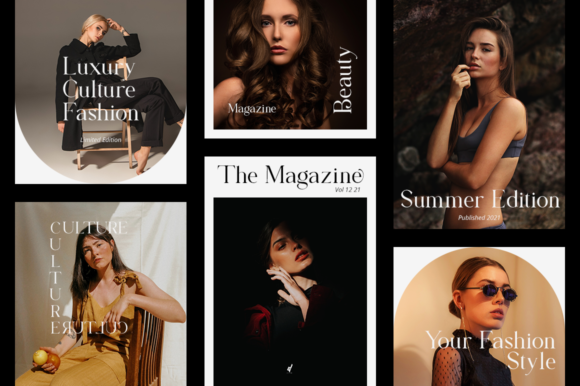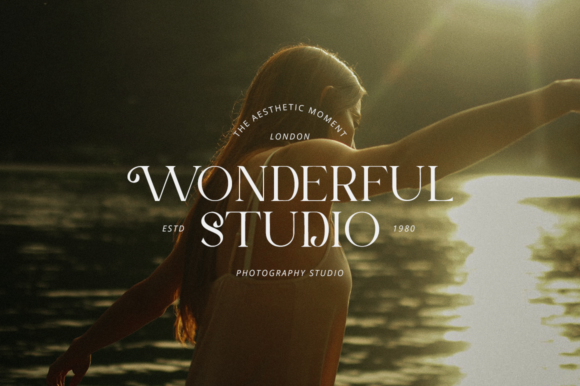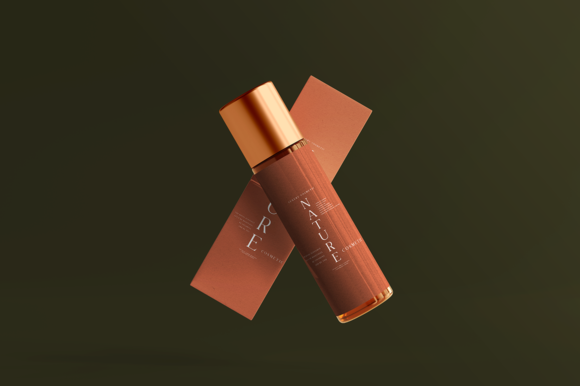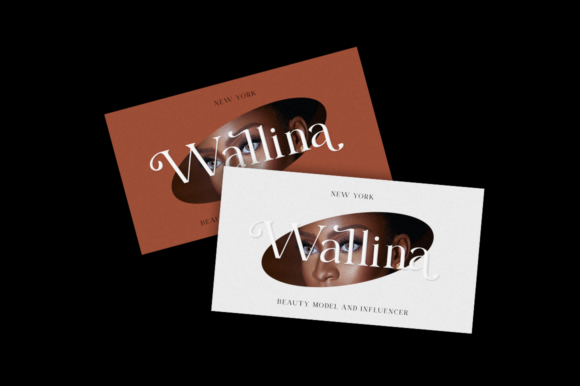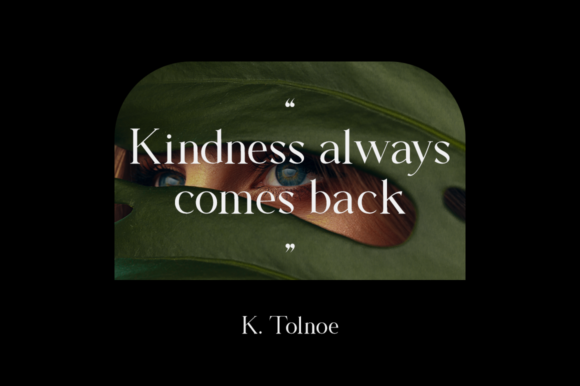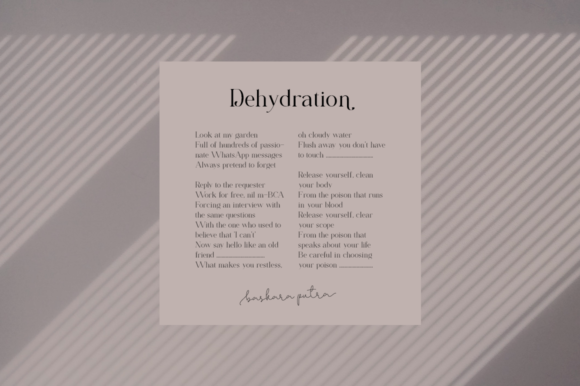
Unleashing the Power of Alchemin Font: Elevate Your Creative Vision
Have you ever stared at a blank page, struggling to find the perfect words to bring your creative vision to life? The blank page syndrome is a familiar foe for many designers and writers. But what if you had the right tool to unlock your imagination and take your creations to the next level?
Enter the Alchemin Font, a stunning serif font designed to elevate any project or design. With its elegant and authentic style, this versatile font is the perfect addition to any designer’s library. Whether you’re working on a romantic novel, a luxury brochure, or a website, the Alchemin Font is sure to bring a touch of sophistication and class to your creations.
Key Features of Alchemin Font
- Font Family: Alchemin Font comes in two font families – Alchemin Regular and Alchemin Bold.
- Character Count: The font contains a vast character set, including Latin, Cyrillic, and Greek alphabets, with over 2000 glyphs.
- Unique Characteristics: Alchemin Font features a unique blend of medieval and mystical elements, with intricate flourishes and ornaments that add a touch of elegance to any design.
Designer Review: Alchemin Font
Alchemin Font is a unique and fascinating font that caught my attention. Here’s what I think works well:
- ✨ The font’s blend of mystical and medieval elements is visually captivating.
- ✨ The bold, expressive letterforms create a sense of drama and luxury.
- ✨ Alchemin Font is highly versatile, suitable for a wide range of applications, from branding to publishing.
However, I’ve also encountered some limitations:
- ⚠️ The font’s high contrast and intricate details can make it difficult to read at smaller sizes.
- ⚠️ Some characters may not display correctly in certain font sizes or styles, which can lead to inconsistencies.
- ⚠️ The font’s mystique can be overwhelming, making it challenging to pair with other typography.
Overall, Alchemin Font is an intriguing choice for designers looking to add a touch of mysticism and luxury to their projects. While it has its limitations, the font’s unique personality and versatility make it a compelling option for the right application.
Alchemin Font is perfect for creating mystical and magical designs, such as fantasy book covers, tarot card illustrations, or witch-themed invitations.
For the best results, use Alchemin Font with a mix of bold and cursive text to create a sense of mystery and intrigue.
Experiment with different font sizes and colors to add depth and visual interest to your design.